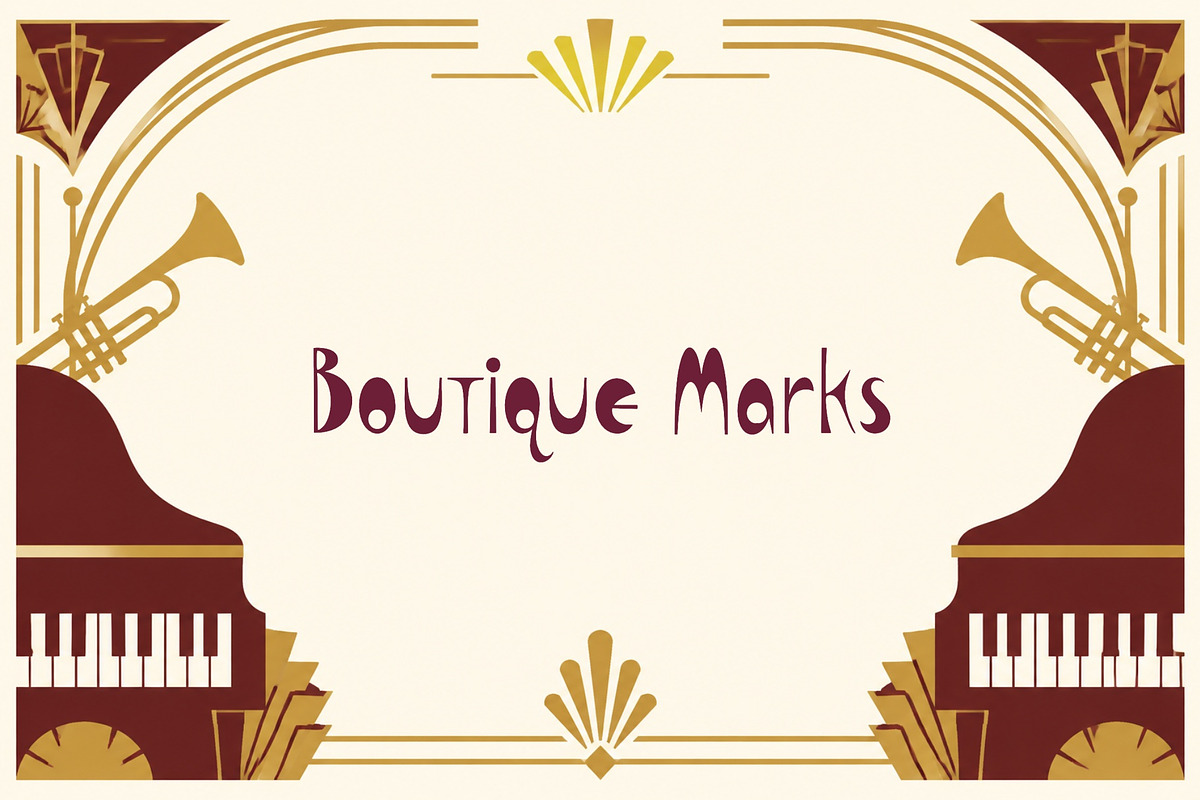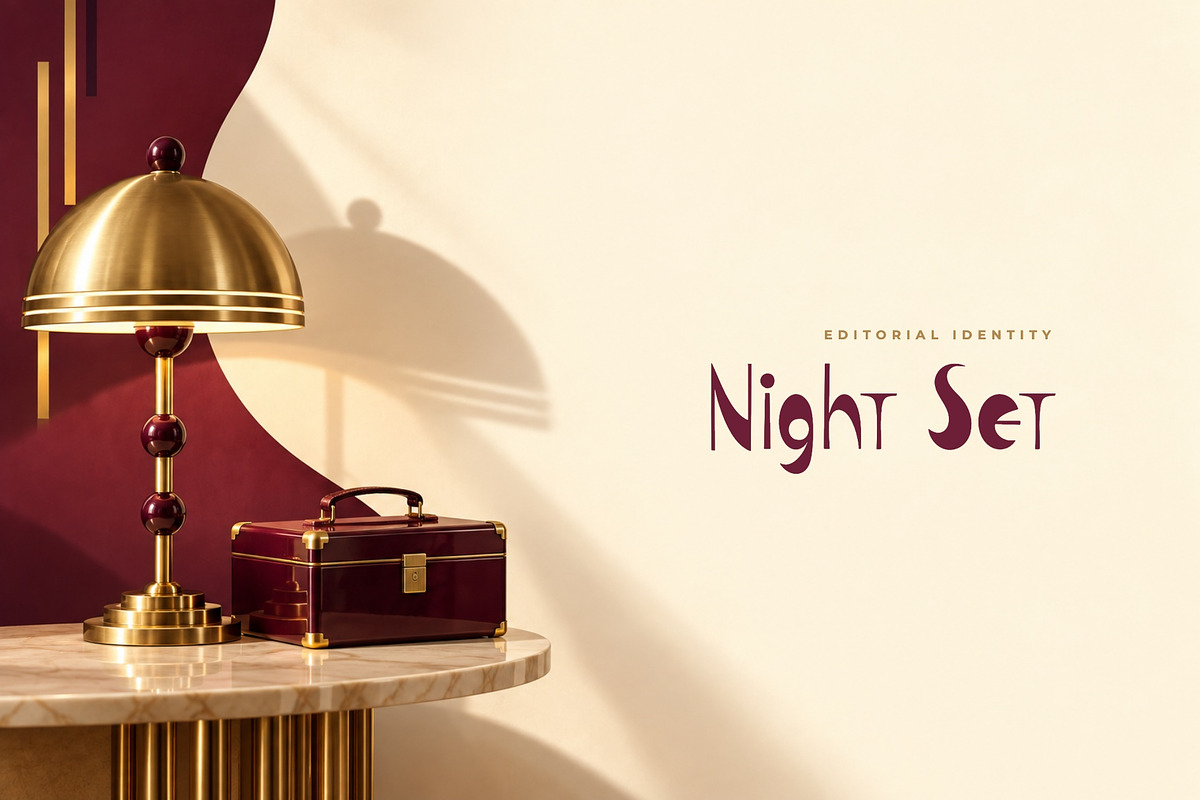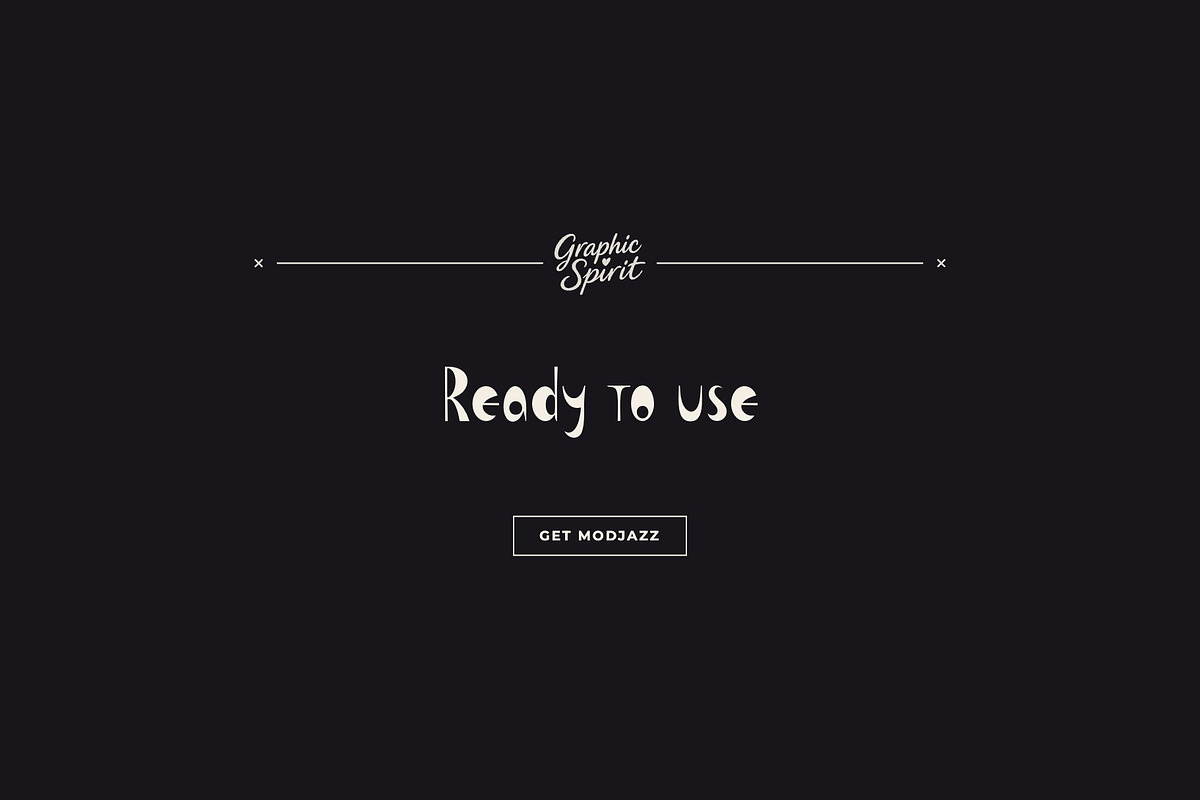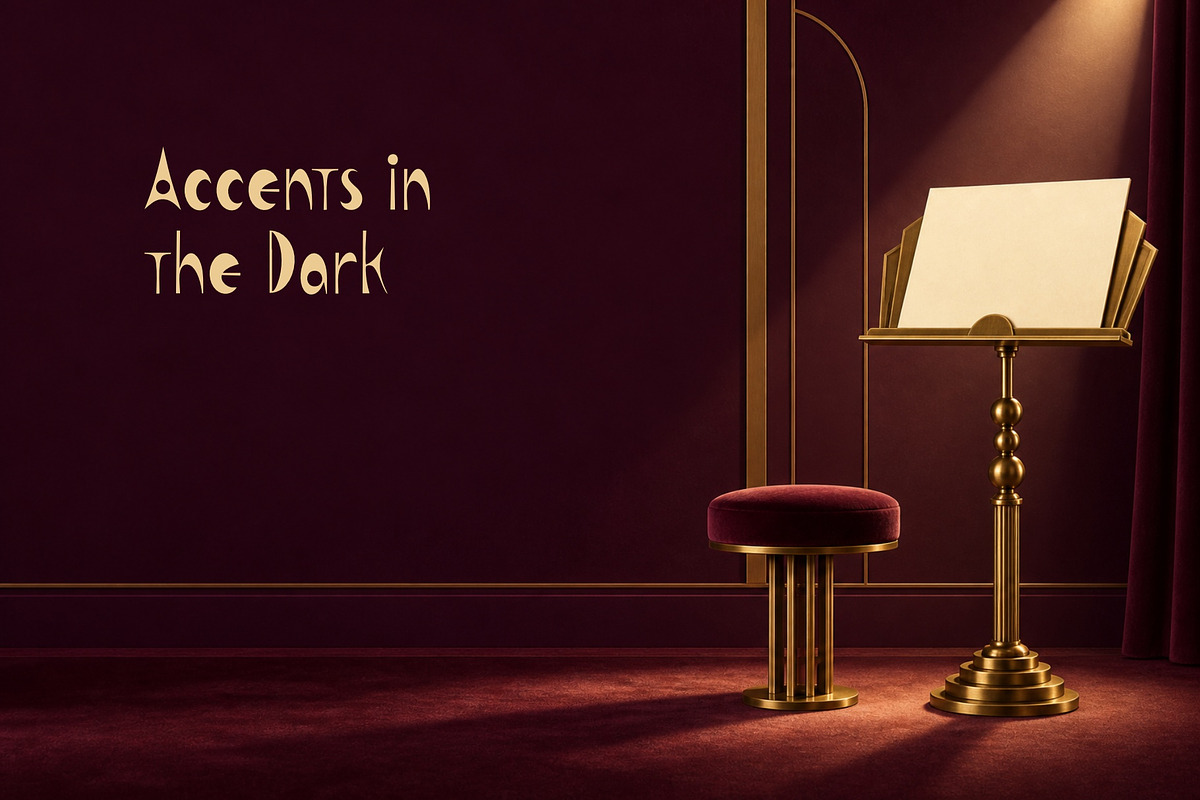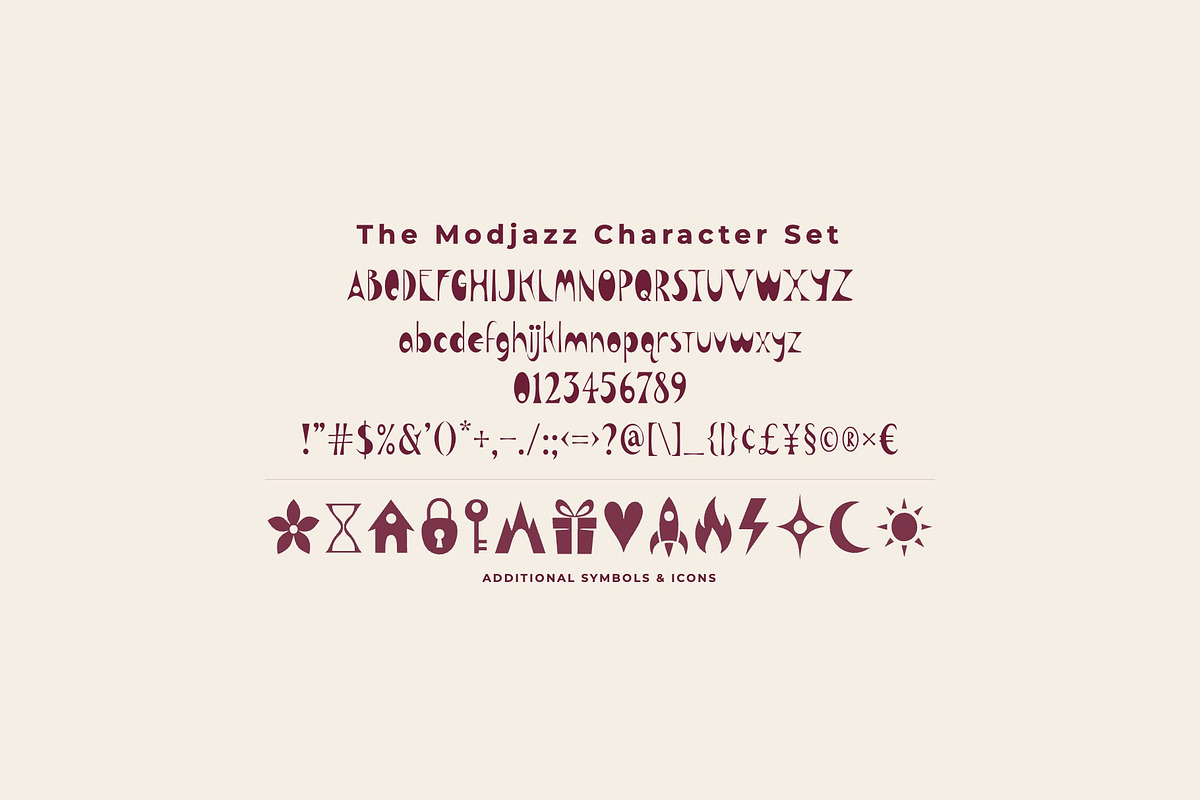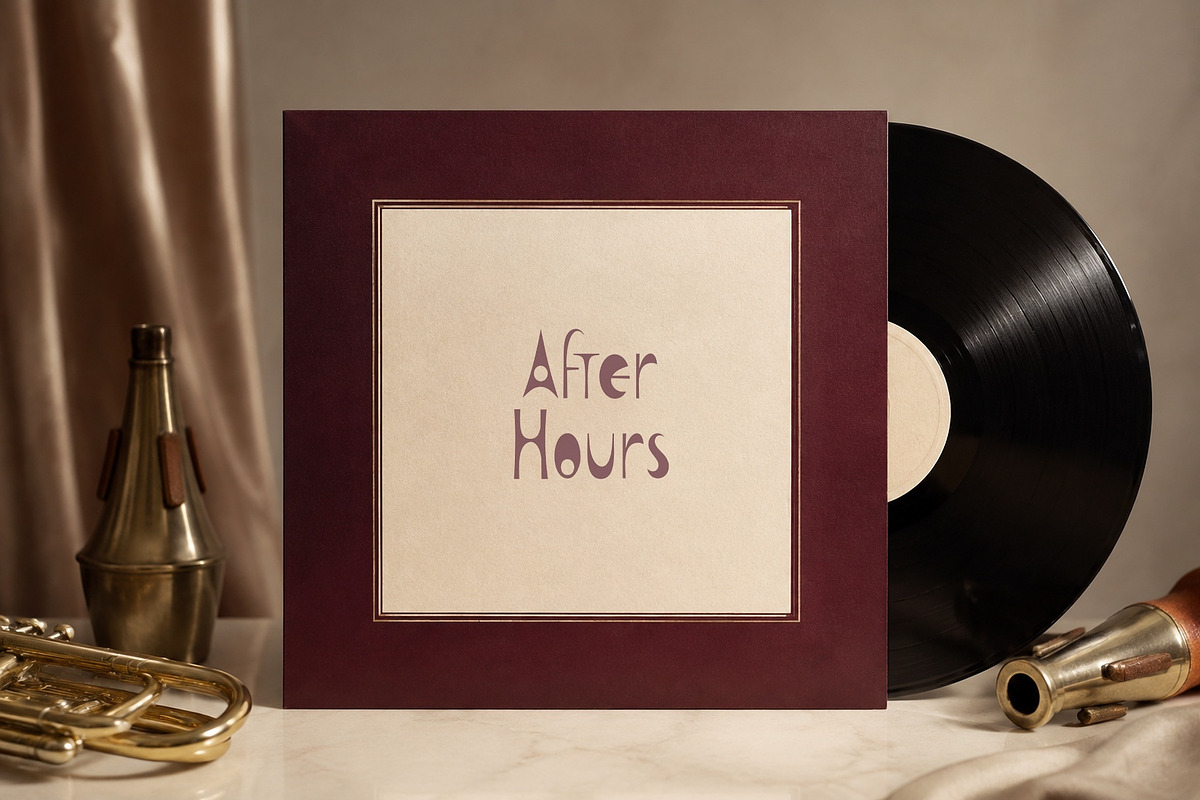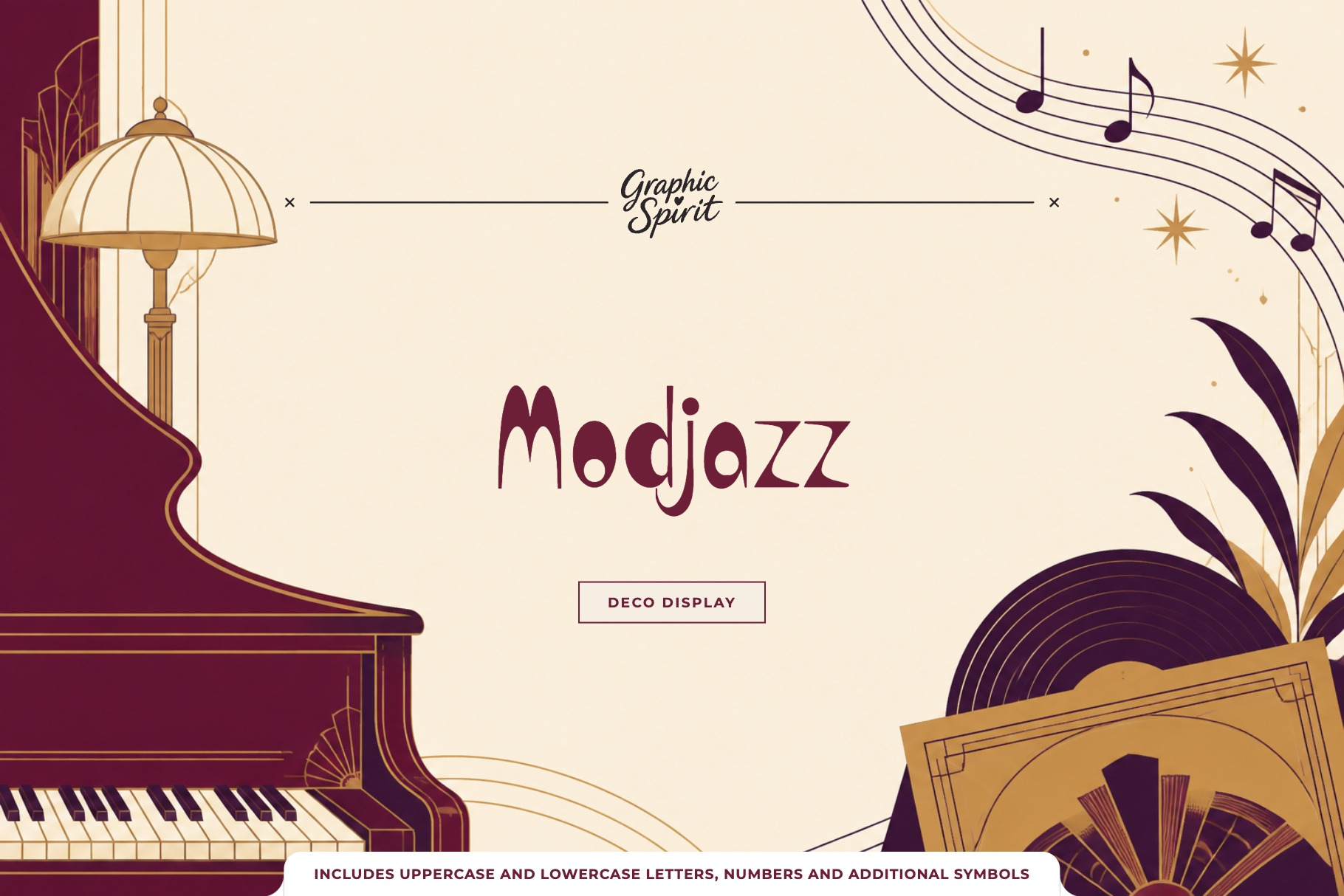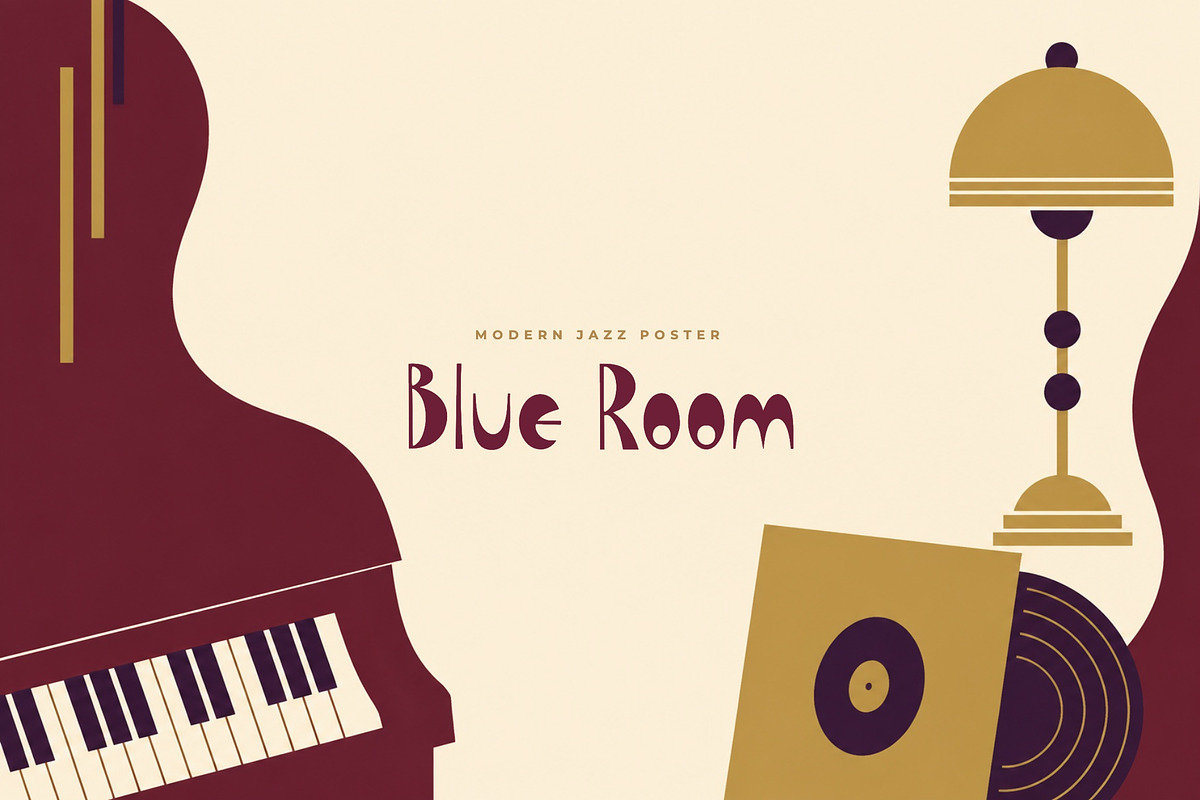
Modjazz Art Deco Display Font
🎷 🥂 🎶 ✨ Modjazz is a art deco high-contrast display shaped by sophisticated jazz-age geometry and polished editorial drama. It was created for designers and independent brands looking for expressive display typography that feels specific rather than generic.
🎨 The font works beautifully across album covers, hospitality branding, editorial layouts, invitations, luxury packaging. Use it for a confident headline, a memorable product name, or a typographic accent that ties a visual identity together. 💫
🌟 Best for:
- 🎷 Album Covers
- 🥂 Hospitality Branding
- 🎶 Editorial Layouts
- 🎷 Invitations
- 🥂 Luxury Packaging